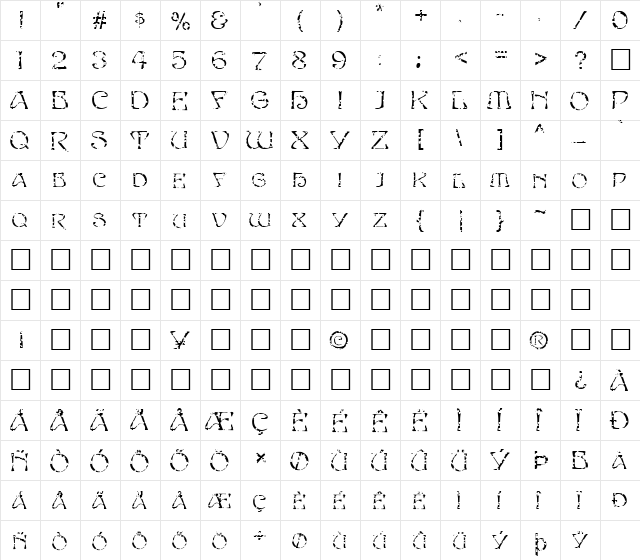
FZ JAZZY 20 HOLEY Normal
Design Context for FZ JAZZY 20 HOLEY Typeface
FZ JAZZY 20 HOLEY is a composed and adaptable typeface that performs quietly and consistently across a wide range of design contexts.